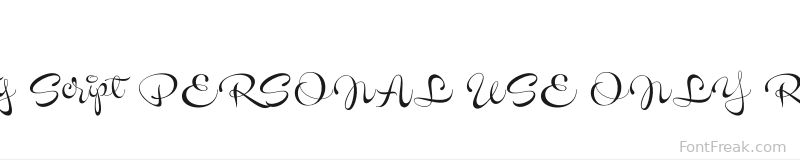
Novety Script PERSONAL USE ONLY Regular
About Novety Script PERSONAL USE ONLY Regular
Novety Script PERSONAL USE ONLY Regular is a beautifully crafted script font designed by Mans Greback. This font belongs to the script category, characterized by its fluid, cursive style that mimics elegant handwriting. The strokes exhibit a delicate contrast, with varying weights that lend a sense of dynamism and sophistication. The spacing between characters flows gracefully, allowing for an organic reading experience. Decorative elements, such as flourishes and loops, enhance its charm and make it visually appealing for a range of creative projects.
This font is particularly well-suited for a variety of applications. It shines in wedding invitations, where its elegant style can convey romance and intimacy. Additionally, it works beautifully on greeting cards, allowing for personal messages to be delivered with flair. Restaurant menus can benefit from Novety Script's artistic touch, adding a refined feel that can elevate the dining experience. Furthermore, it can be used effectively in branding for small businesses, especially those in the creative or artisanal sectors, where a personal touch is essential.
What sets Novety Script PERSONAL USE ONLY Regular apart is its enchanting combination of elegance and readability. This font offers a distinctive flair that captures attention while remaining legible, making it a versatile choice for creators. For those interested in infusing their designs with personality and style, the Novety Script PERSONAL USE ONLY Regular font free download is a must-have addition to any font collection.